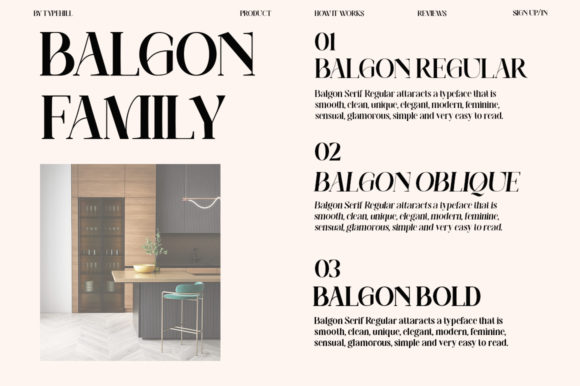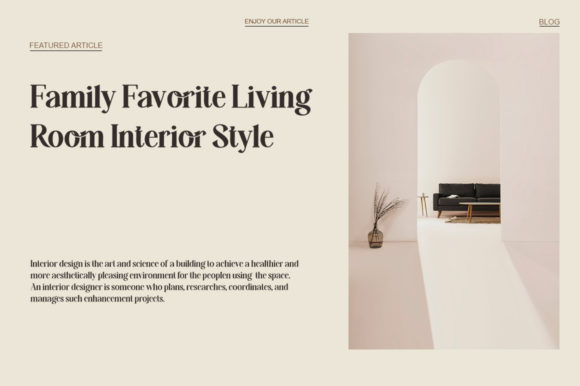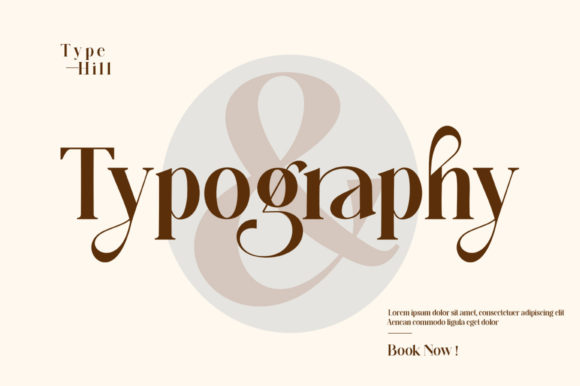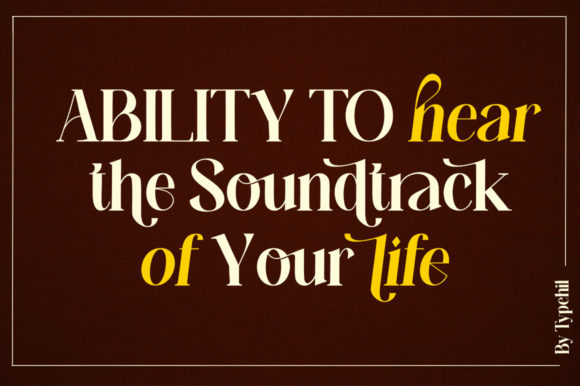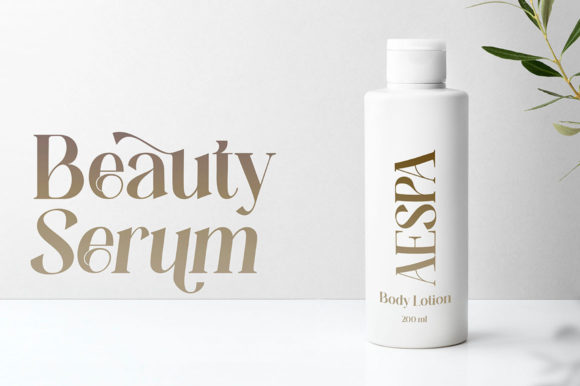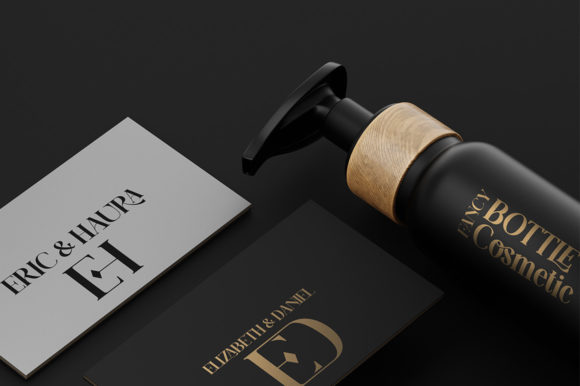
Balgon Font: Elevate Your Designs with a Touch of Retro Luxury
In the world of typography, fonts play a crucial role in conveying the tone and aesthetic of a design. For designers and crafters looking to add a touch of sophistication and elegance to their projects, the Balgon Font is an excellent choice. This retro, luxurious, and bold serif font is designed to make a statement, and its PUA encoding makes it incredibly easy to use.
The Characteristics of Balgon Font
Balgon Font is a serif font that exudes luxury and sophistication. Its bold and retro design makes it perfect for headlines, titles, and any other text that needs to stand out. The font’s serif details add a touch of classic elegance, making it suitable for a wide range of design projects, from branding and advertising to packaging and editorial design.
One of the standout features of Balgon Font is its PUA (Private Use Area) encoding. PUA encoding allows designers to access a wide range of glyphs and swashes, making it easy to customize and enhance their designs. With PUA encoding, you can easily access alternative characters, ligatures, and other special glyphs, giving you more creative freedom and flexibility.
Benefits of Using Balgon Font
So, why choose Balgon Font for your design projects? Here are just a few benefits of using this luxurious and bold serif font:
- Unique and eye-catching design: Balgon Font’s retro and luxurious design makes it perfect for designers looking to create unique and eye-catching designs.
- Easy to use: With PUA encoding, accessing glyphs and swashes is a breeze, making it easy to get started with your design project.
- Highly versatile: Balgon Font is suitable for a wide range of design projects, from branding and advertising to packaging and editorial design.
- Customizable: With a wide range of glyphs and swashes at your disposal, you can customize Balgon Font to fit your design needs.
How to Use Balgon Font in Your Designs
Using Balgon Font in your designs is easy. Here are a few tips to get you started:
- Pair it with a sans-serif font: Pairing Balgon Font with a sans-serif font can create a striking contrast and add visual interest to your design.
- Experiment with glyphs and swashes: With PUA encoding, you can easily access a wide range of glyphs and swashes. Experiment with different combinations to find the perfect look for your design.
- Use it for headlines and titles: Balgon Font’s bold and luxurious design makes it perfect for headlines and titles. Use it to make a statement and draw attention to your design.
In conclusion, Balgon Font is a luxurious and bold serif font that is perfect for designers and crafters looking to add a touch of sophistication and elegance to their designs. With its PUA encoding and wide range of glyphs and swashes, Balgon Font offers endless creative possibilities. Whether you’re working on a branding project, creating a poster, or designing a website, Balgon Font is an excellent choice.
For designers and crafters looking to get the most out of Balgon Font, here are a few tips:
- Experiment with different font sizes: Balgon Font looks great in large and small sizes. Experiment with different font sizes to find the perfect look for your design.
- Pay attention to kerning: As with any font, pay attention to kerning to ensure that your text looks professional and polished.
- Use it sparingly: While Balgon Font is a beautiful font, it’s best used sparingly. Use it for headlines and titles, and pair it with a sans-serif font for body text.
By following these tips and using Balgon Font in your designs, you can create stunning and professional-looking designs that are sure to impress.